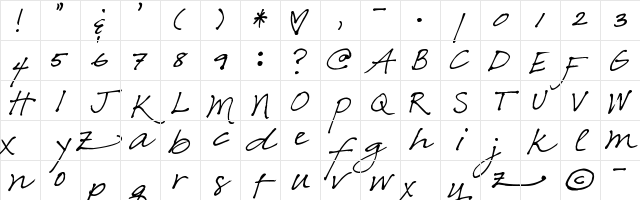
Pea Olson Regular
Design Context for Pea Olson
Pea Olson is a composed and adaptable typeface that performs quietly and consistently across a wide range of design contexts.